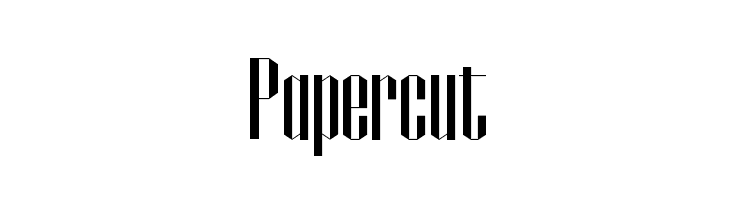
Chaque police phare se distingue par équilibre, lisibilité et polyvalence. Vous trouverez des sans‑serifs modernes, des scripts élégantes, des serifs vintage et des displays minimalistes.
A playful, bold font with a hand-drawn, whimsical style.
A playful and elegant script font with flowing, interconnected letterforms.
A bold, flowing script font with elegant curves and smooth strokes.
A bold, distressed font with a grunge texture and rugged appearance.
A playful, bold, hand-drawn font with a three-dimensional outline.
A bold, distressed font with a vintage, grunge texture.
A distressed, textured font with a grungy, hand-drawn style.
A modern geometric font with angular, clean lines and a futuristic style.
A grunge-inspired font with dripping, chaotic strokes for a rebellious look.
A modern, geometric sans-serif font with clean lines and balanced spacing.
A playful, bold, and whimsical handwritten font with retro flair.
A playful, handwritten font with uneven strokes and a casual, dynamic style.
A modern sans-serif font with geometric shapes and uniform strokes.
A bold, italicized sans-serif font with a modern and dynamic style.
A bold, italic serif font with moderate contrast and elegant style.
A bold, modern font with geometric elements and playful curves.
A playful and whimsical script font with elegant curves and fluid strokes.
A bold, industrial font with a gritty, metallic texture.
A bold, splatter-effect font with a dynamic and artistic style.
A thin, elegant serif font with tall, slender characters and subtle serifs.
A bold, geometric font with a three-dimensional shadow effect.
A playful, handwritten font with a casual and friendly style.
A playful, rounded, and handwritten-style font with a friendly vibe.